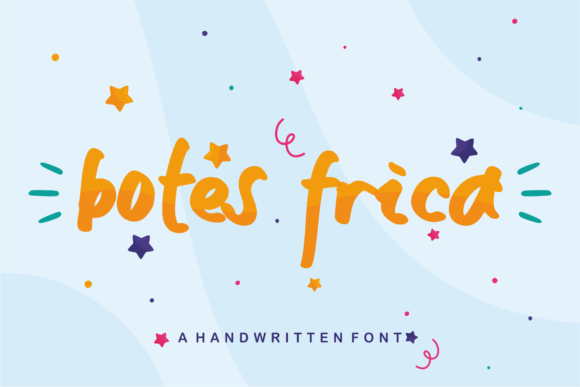
Journey into a realm of enchanting creativity with Botes Frica Font, a captivating script font family that embodies the spirit of joy and innocence. Crafted with meticulous care by Azetype, this font is not merely a collection of characters, but a gateway to a world of imagination, perfect for capturing the essence of childhood and spreading positivity wherever it goes.
Immerse yourself in the whimsical charm of Botes Frica, a font that dances across the page like a playful child, evoking a sense of wonder and delight. Its beautifully imperfect strokes, reminiscent of a child's handwriting, add a touch of authenticity and warmth to any project, making it the perfect choice for creating heartfelt and memorable designs.
Botes Frica's versatility extends far beyond its playful nature. With its wide range of applications, it can effortlessly transform any project into a work of art. From creating whimsical wedding invitations that capture the magic of your special day to designing eye-catching social media posts that resonate with your audience, Botes Frica is your trusty companion in expressing yourself creatively.
Let your imagination soar as you explore the endless possibilities of Botes Frica. Design stunning posters and flyers that burst with energy and vibrancy, leaving a lasting impression on your audience. Embark on creative journeys, crafting personalized greeting cards and heartfelt letters that carry your warm wishes and heartfelt sentiments. The possibilities are limitless.
With Botes Frica, you have the power to transform ordinary designs into extraordinary creations. Its unique and captivating style adds a touch of magic to any project, making it a must-have for designers, crafters, and anyone who seeks to infuse their work with a sense of joy and wonder.
So, dive into the enchanting world of Botes Frica and let your creativity flourish. Its versatility and charm will elevate your designs to new heights, capturing hearts and spreading smiles wherever it goes. Embrace the magic of Botes Frica today and unlock the boundless potential of your imagination!